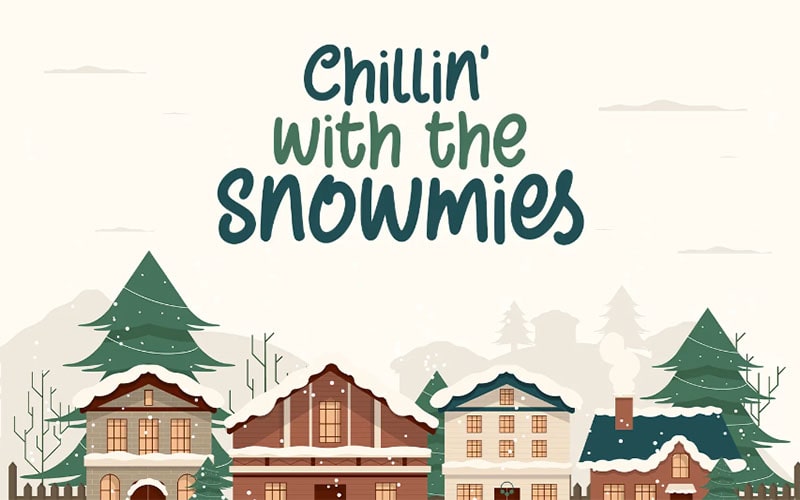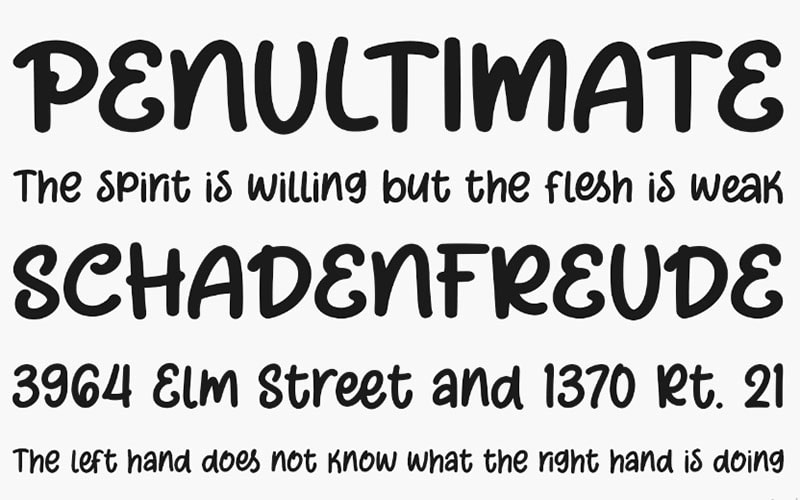
Winter Memories is a script font that evokes the warm, nostalgic feelings of the winter season. Designed by Debut Studio, a well-known type foundry based in Indonesia.
This font captures the essence of winter’s quiet beauty and festive spirit. The design reflects a deep understanding of calligraphy and a passion for elegant, flowing letterforms.
Debut Studio is recognized for creating fonts that combine traditional craftsmanship with modern design needs, and Winter Memories is no exception.
It is a font that exudes warmth and elegance, making it perfect for a variety of seasonal and celebratory designs. It is primarily available in a single script style, which features delicate, flowing lines and graceful curves.
Winter Memories Font
| Style: | Handwritten, Script, Typeface |
| Font Designer: | Alpaprana Studio |
The font is imbued with the spirit of the winter season, making it particularly suitable for holiday and festive designs. A high-quality font that ensures sharp, clean lines in both print and digital formats.